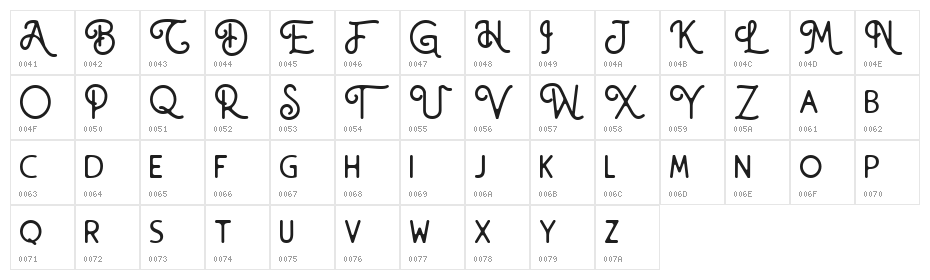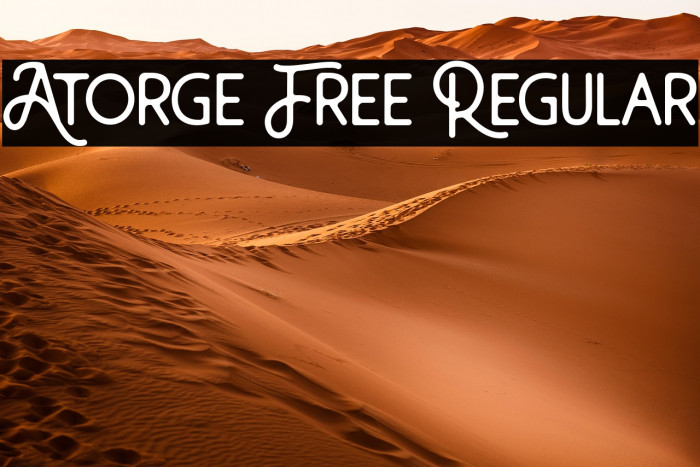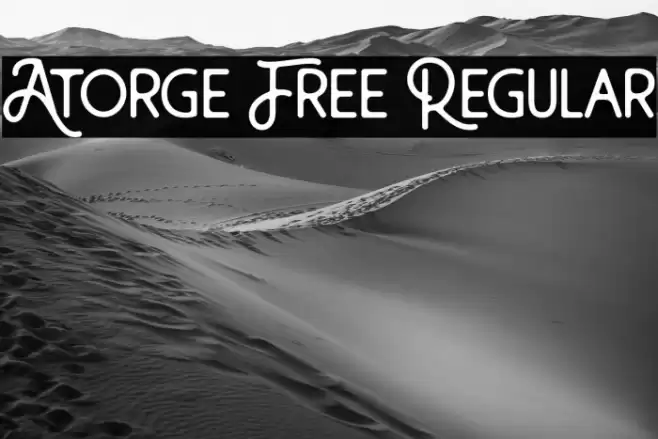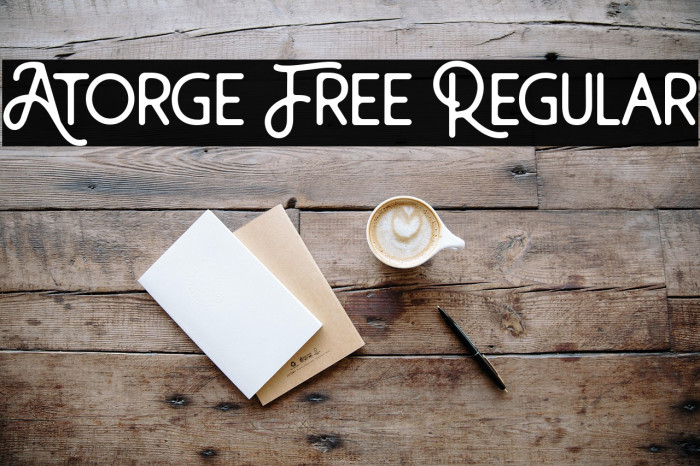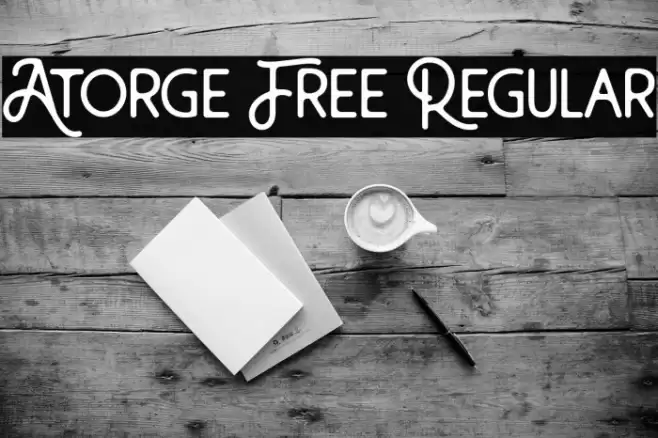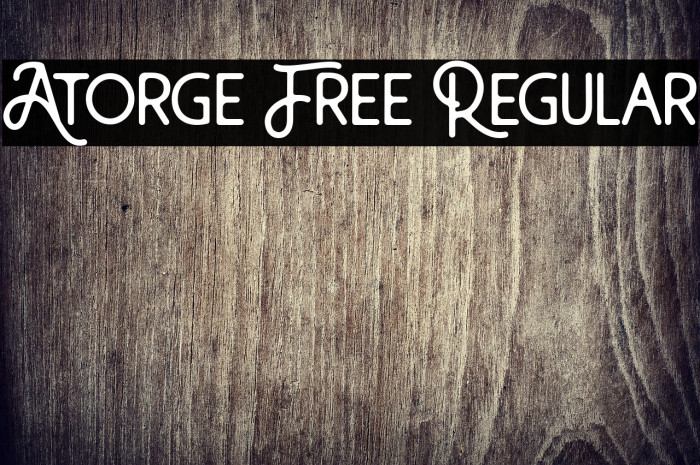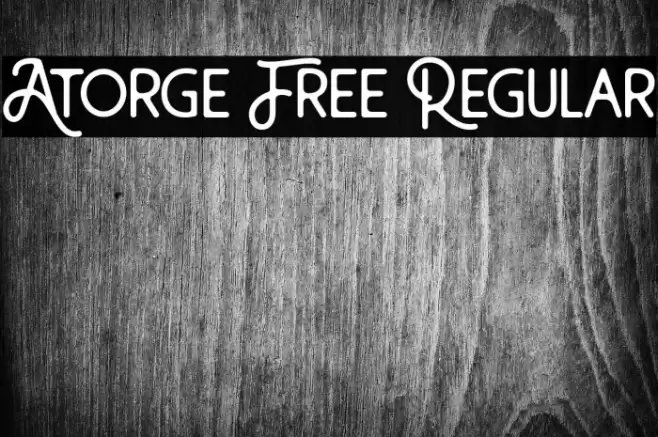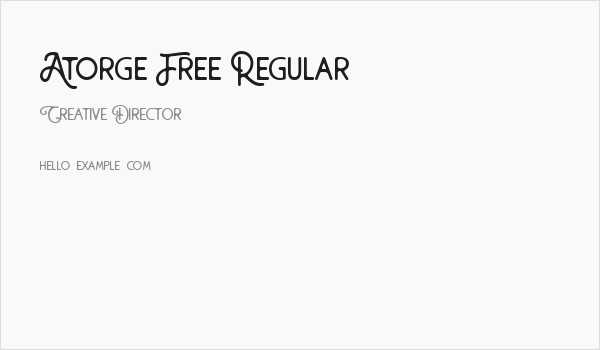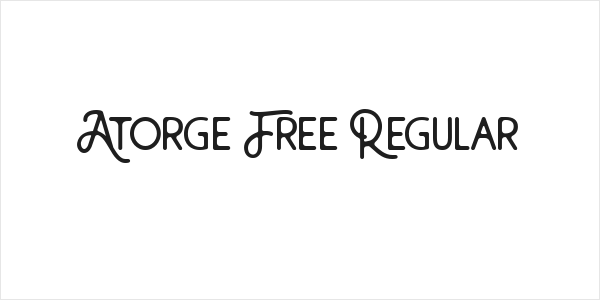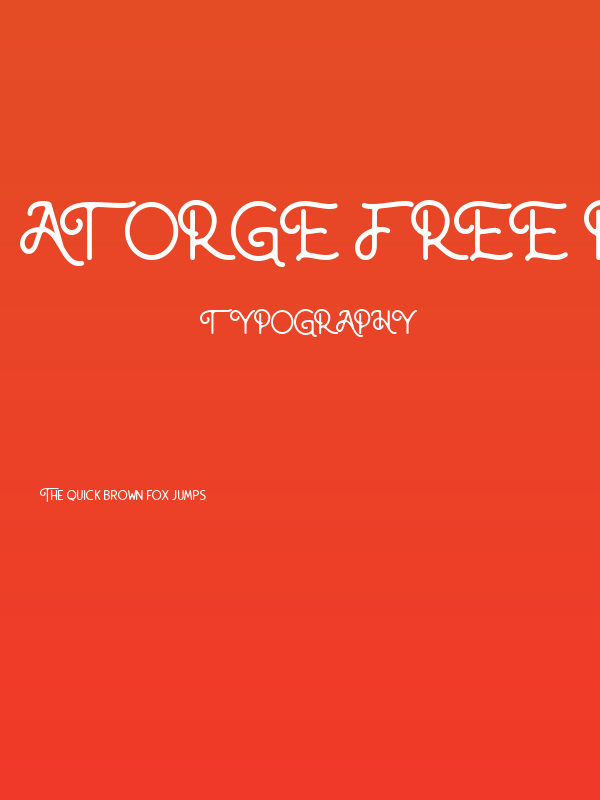
Atorge Free Regular Font
Atorge Free Regular Description
This font features a unique blend of decorative and modern elements, with a playful and artistic flair. The uppercase letters exhibit a whimsical style with intricate loops and curls, adding a touch of elegance and creativity. The lowercase letters maintain a consistent style, complementing the uppercase with their own subtle curves. The numbers and special characters follow the same design principles, ensuring a cohesive look across all characters. This font is perfect for projects that require a distinctive and eye-catching appearance, such as invitations, posters, or branding materials.
| Proposed Projects | Ideal for invitations, posters, branding materials, and creative designs. |